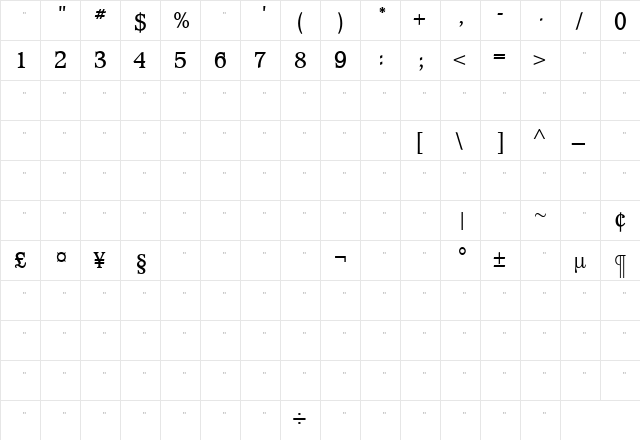
WaverlyMediumTab Roman
Design Context for WaverlyMediumTab Typeface
WaverlyMediumTab offers clean, dependable letterforms without strong stylistic allegiance, making it a practical choice for designers who need flexibility.
Pro Tip: Use WaverlyMediumTab in both headline and body roles to test its range before committing to a single application.